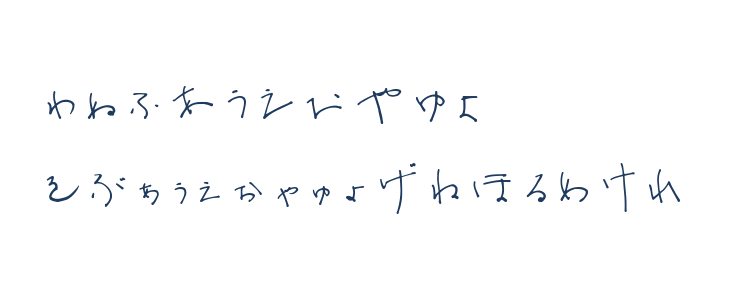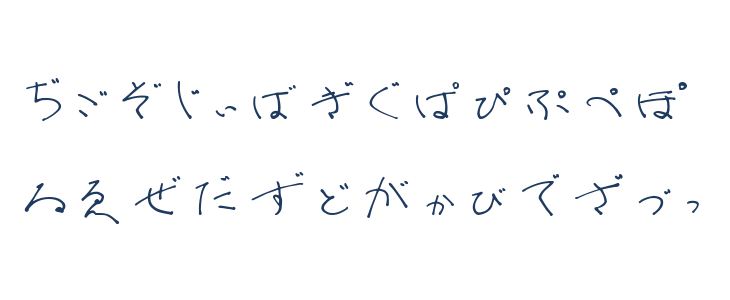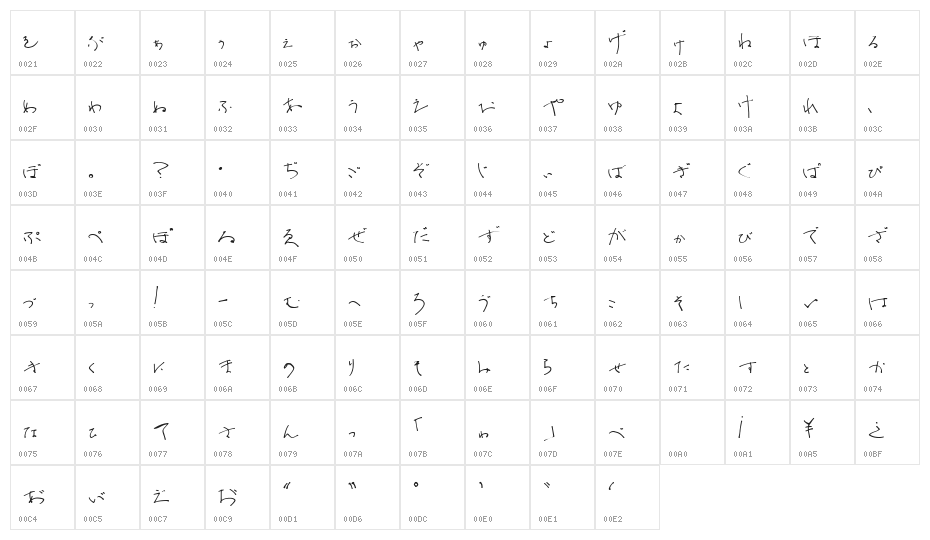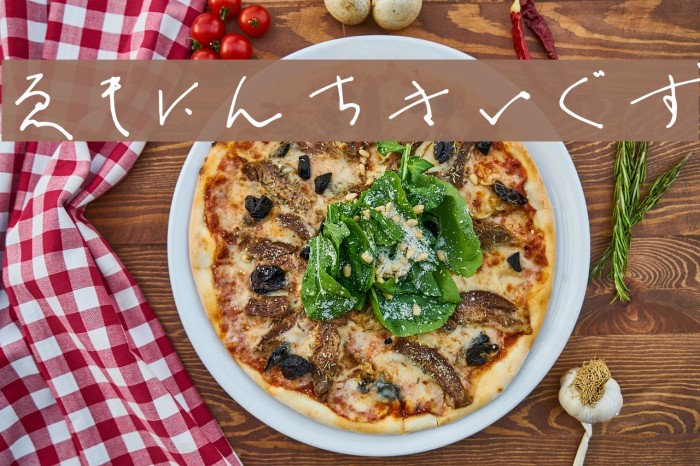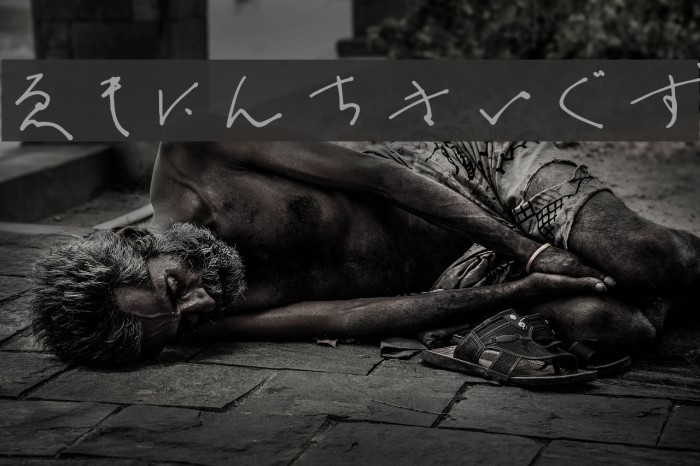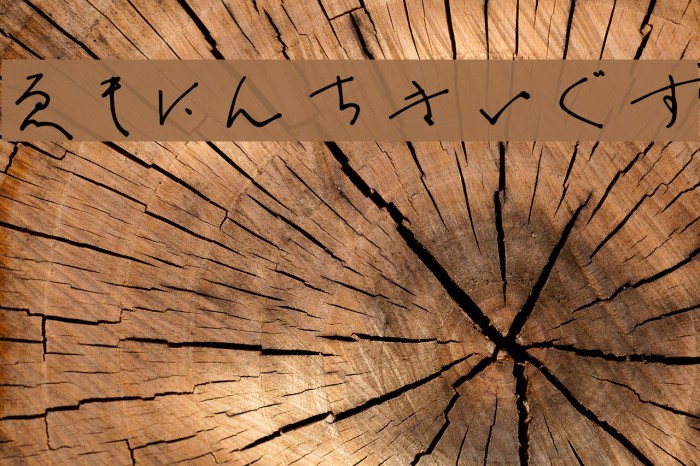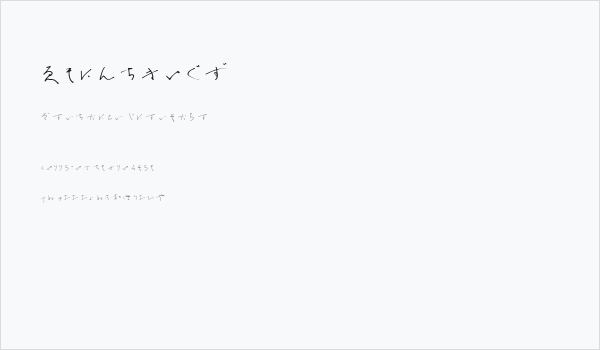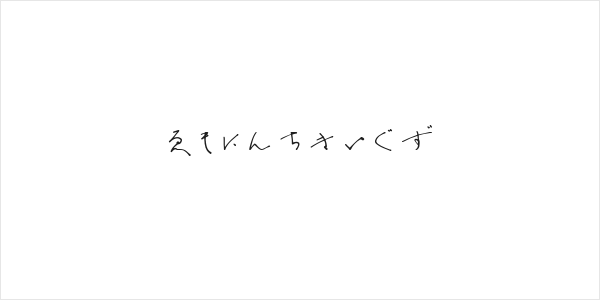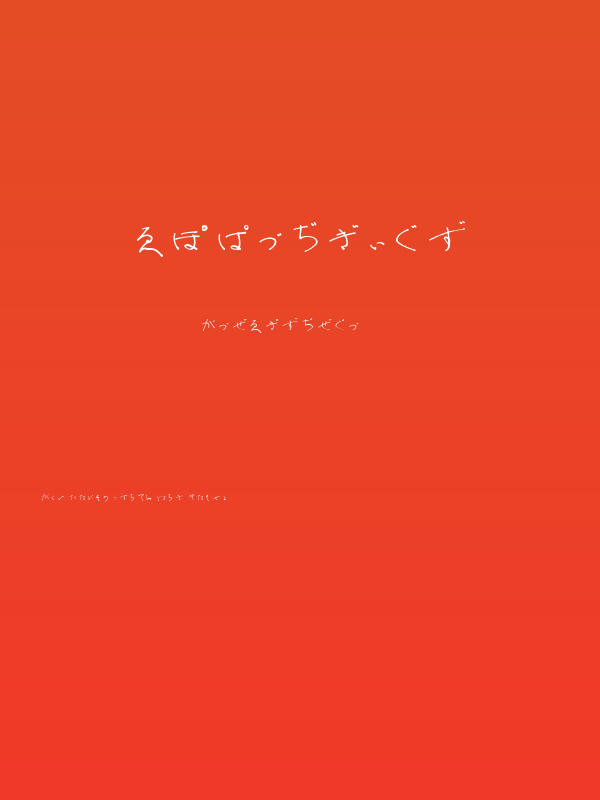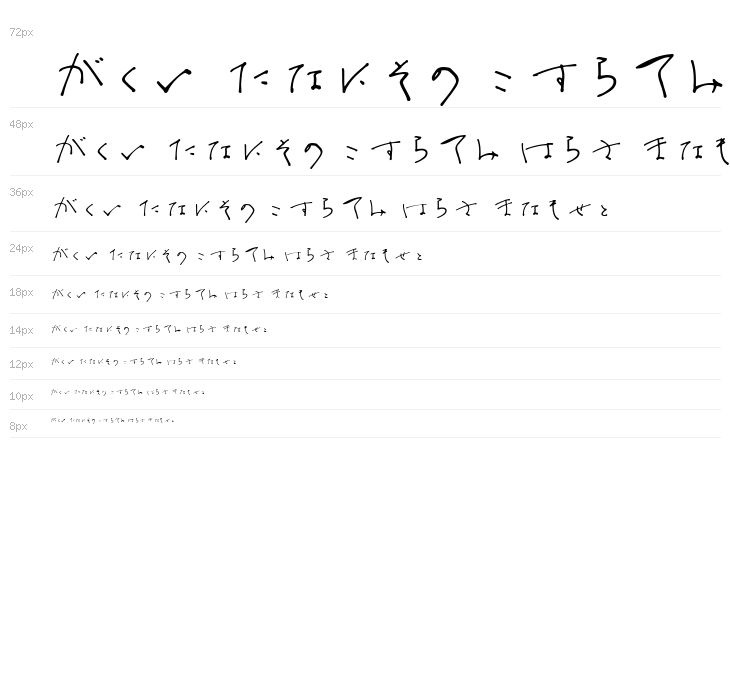
OmiyageHR Font
OmiyageHR Description
This font embodies a casual, handwritten style with a playful and informal appearance. The characters are crafted with a loose, flowing script that mimics natural handwriting, giving it a personal and approachable feel. The strokes are uneven, adding to the authenticity of the handwritten look. The font maintains a consistent baseline, though the character heights and widths vary, enhancing its dynamic and lively nature. This style is reminiscent of quick, informal notes or personal letters, making it ideal for projects that require a touch of personality and warmth.
| Overall Style | Casual, Informal |
| Use Case | Personal notes, Invitations, Greeting cards |
| Proposed Projects | Ideal for personal notes, invitations, greeting cards, and any project requiring a personal touch. |